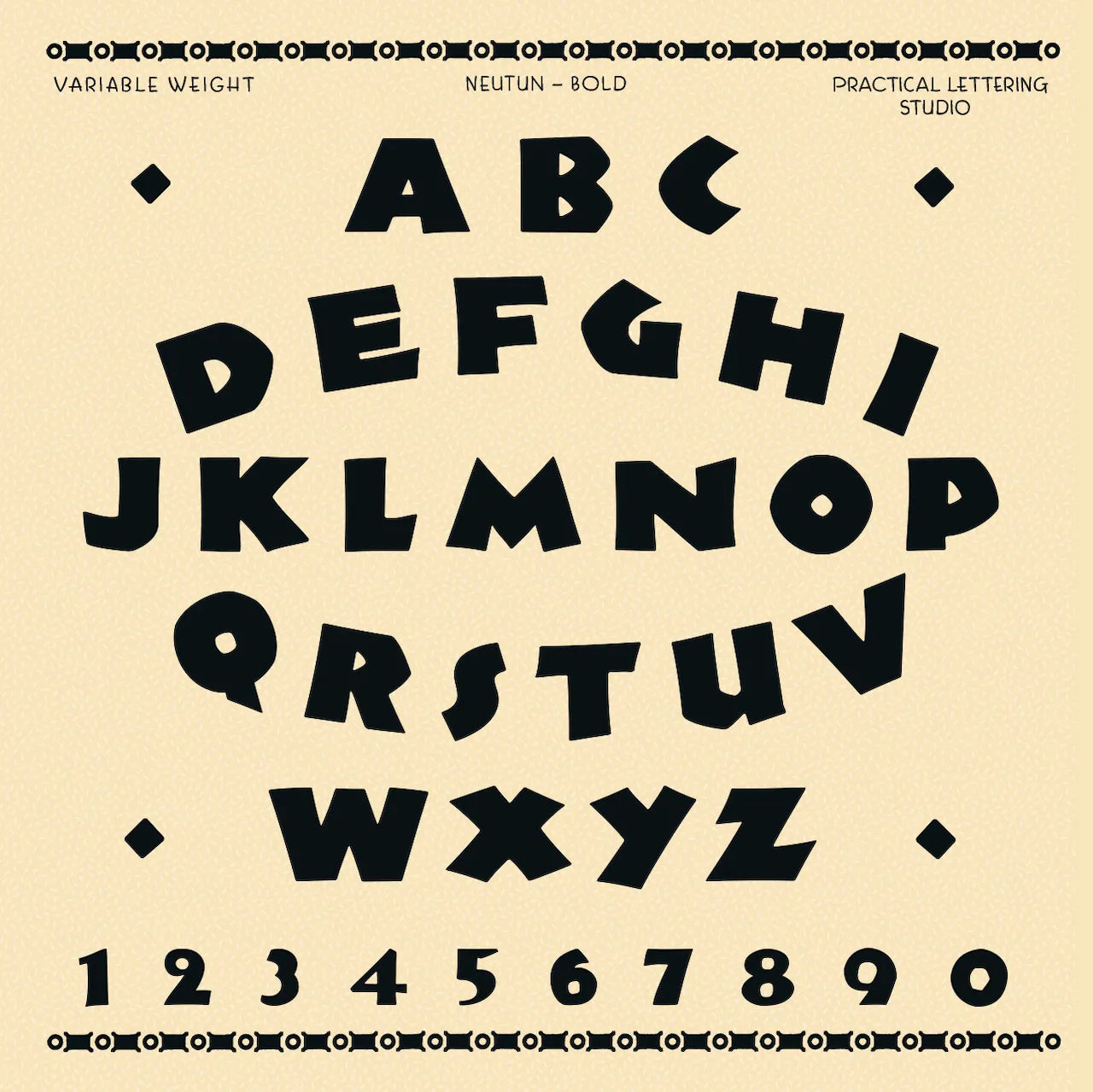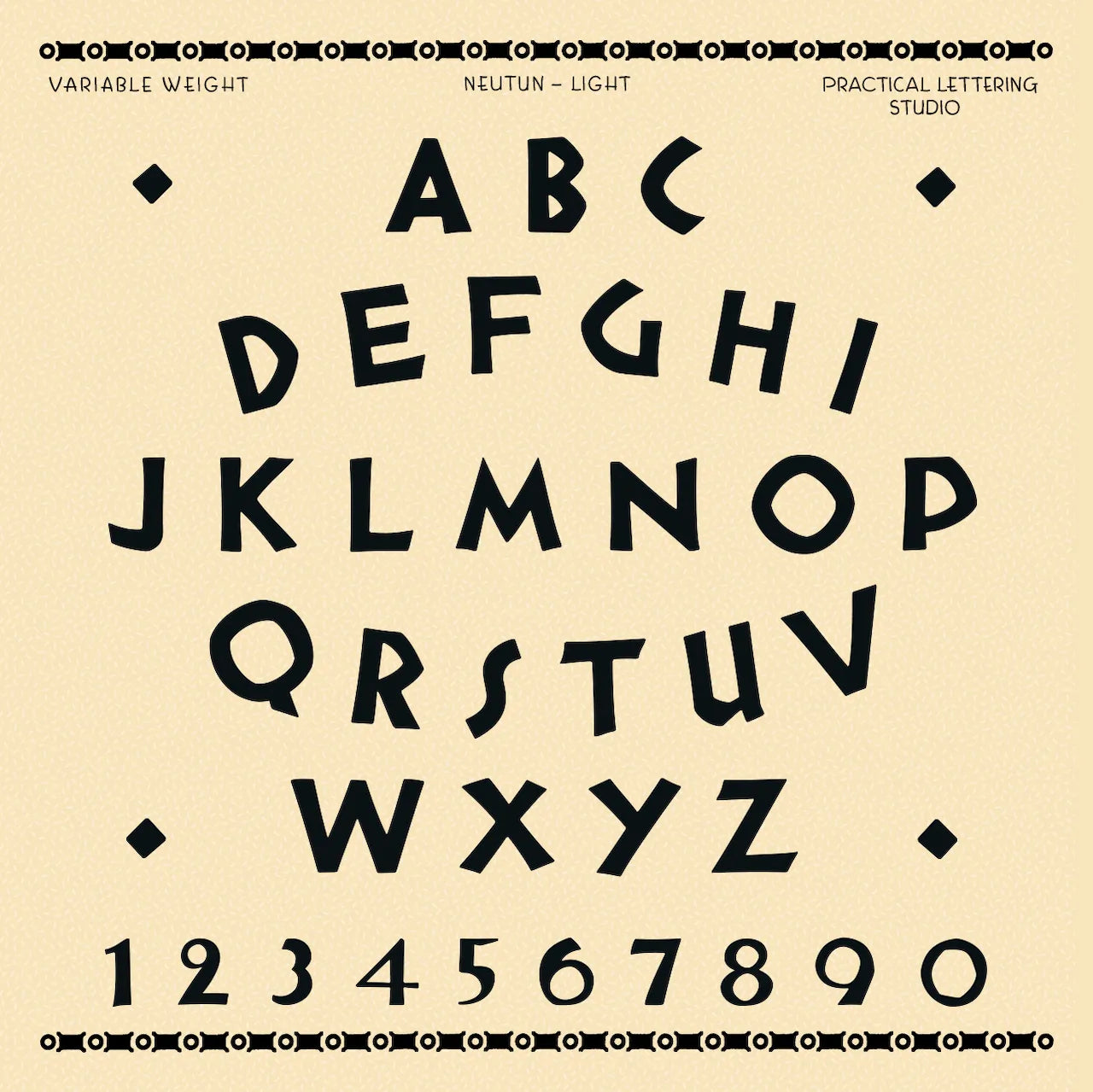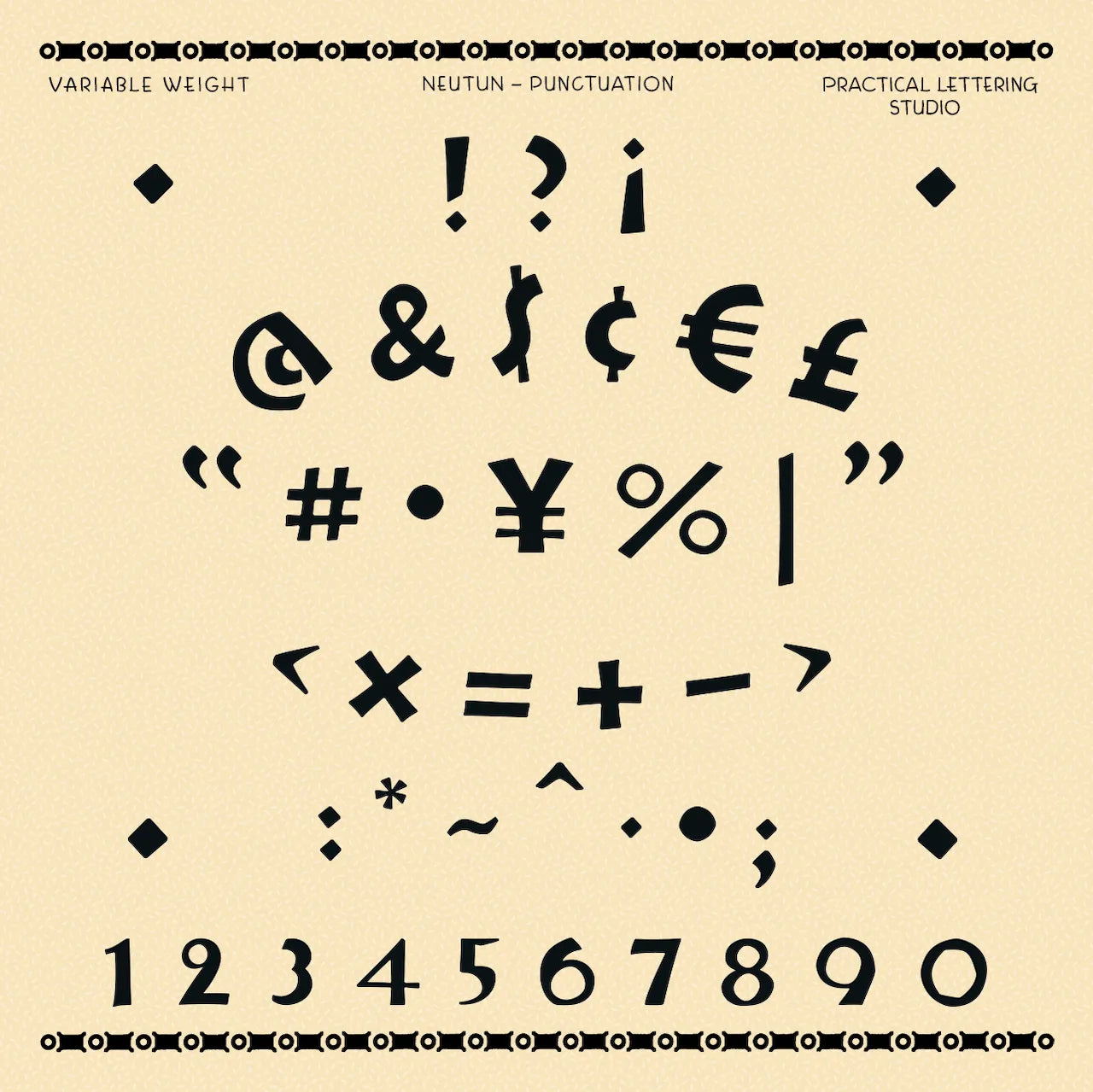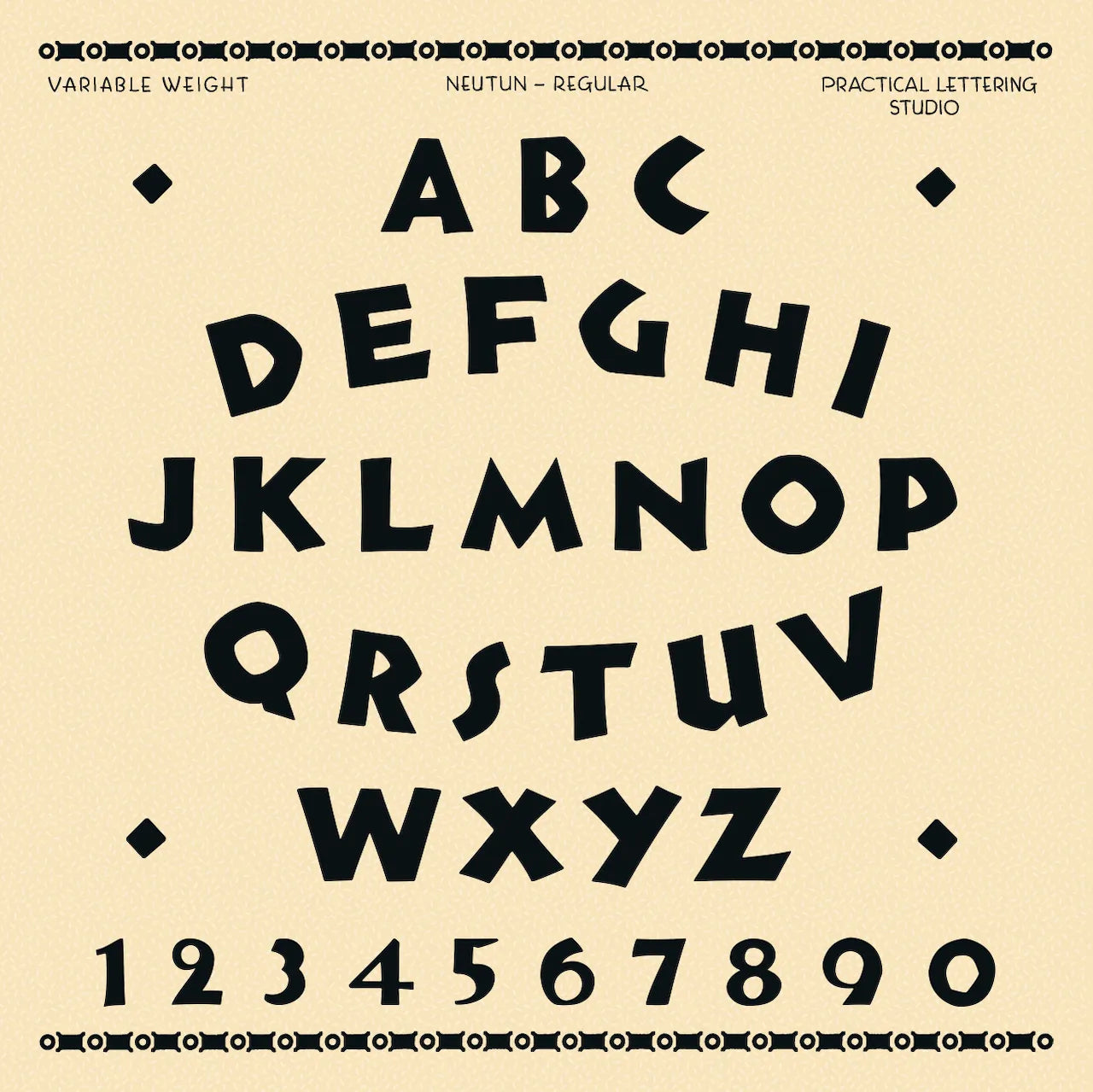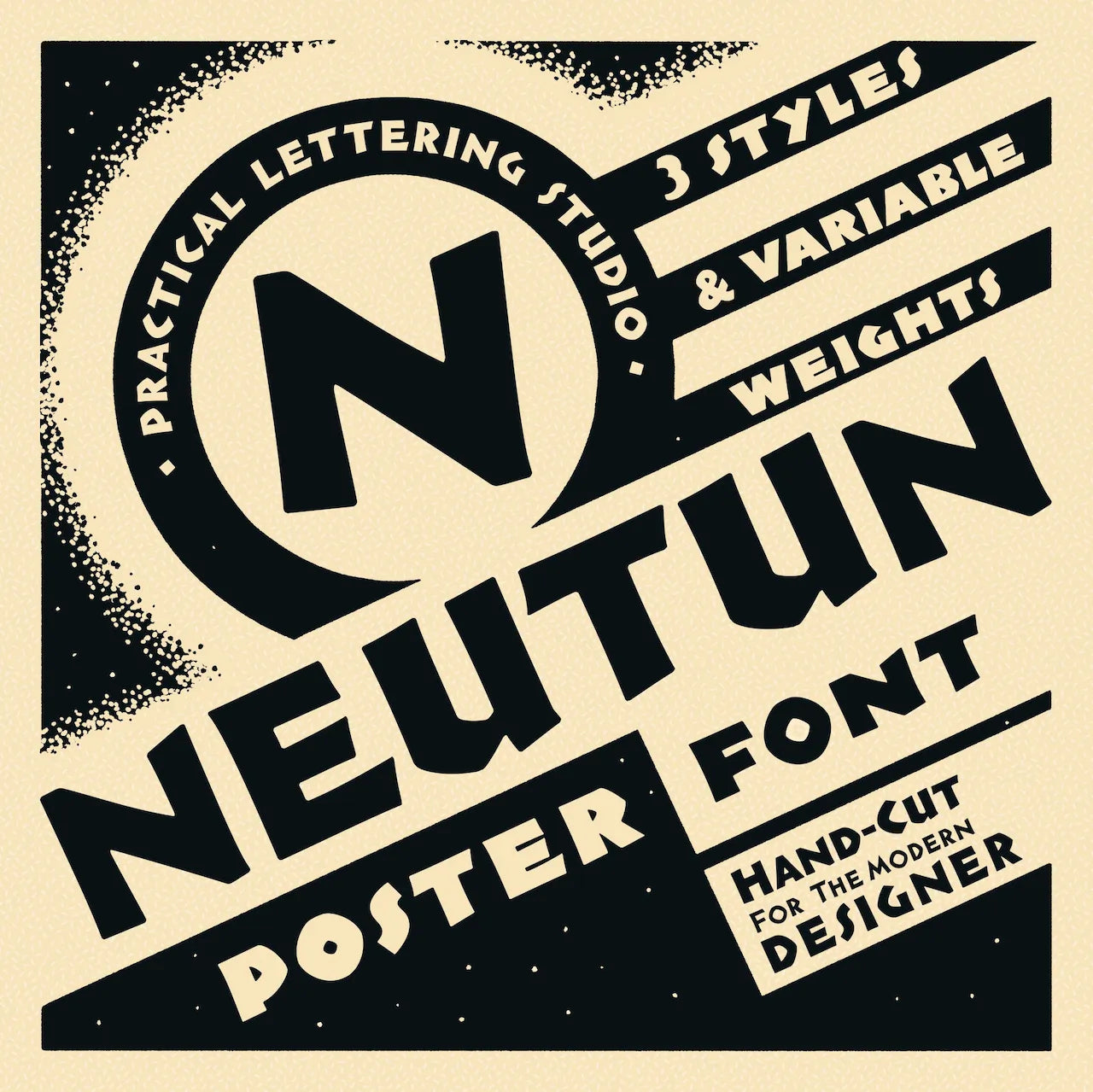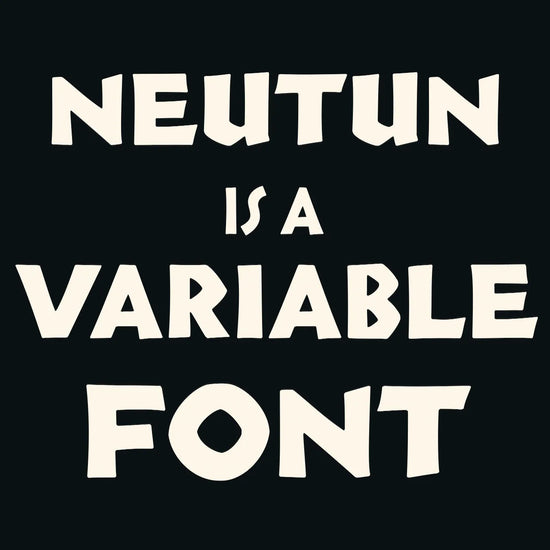
PLS Neutun
Bold poster font that demands attention!
NEUTUN is Practical Lettering's take on Neuland, a high-impact display font with purposeful irregularity and hand cut forms created by Rudolf Koch in 1923. Perfect for use in poster design, leather work, appliqué, embroidery, screen print, packaging, and sign arts.
Neutun is the first variable-font interpretation of this classic German Poster style, giving you fine tuned control over weight while preserving the hand-carved charm.
• Variable font with a weight axis for fine-tune control between styles.
• Uppercase, lowercase, numbers, and punctuation.
• Select alternates to vary repeated letters and tighten fits.